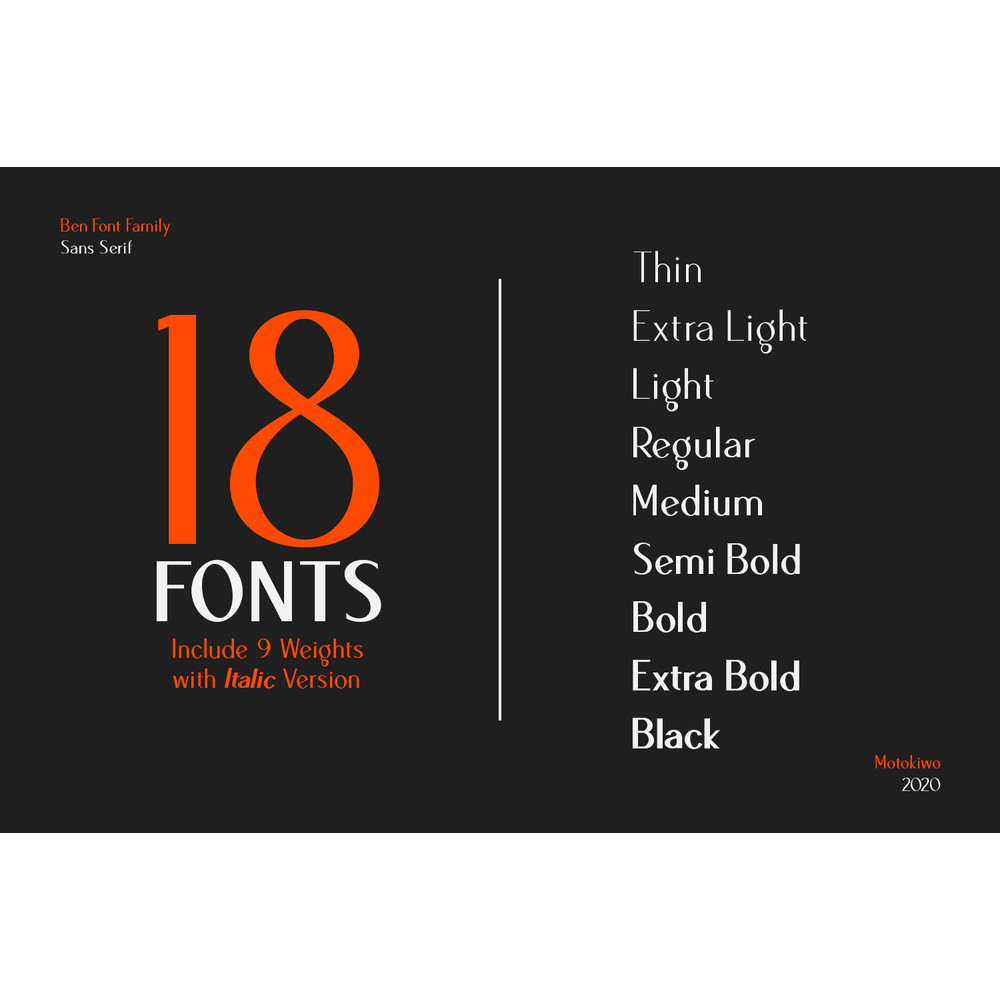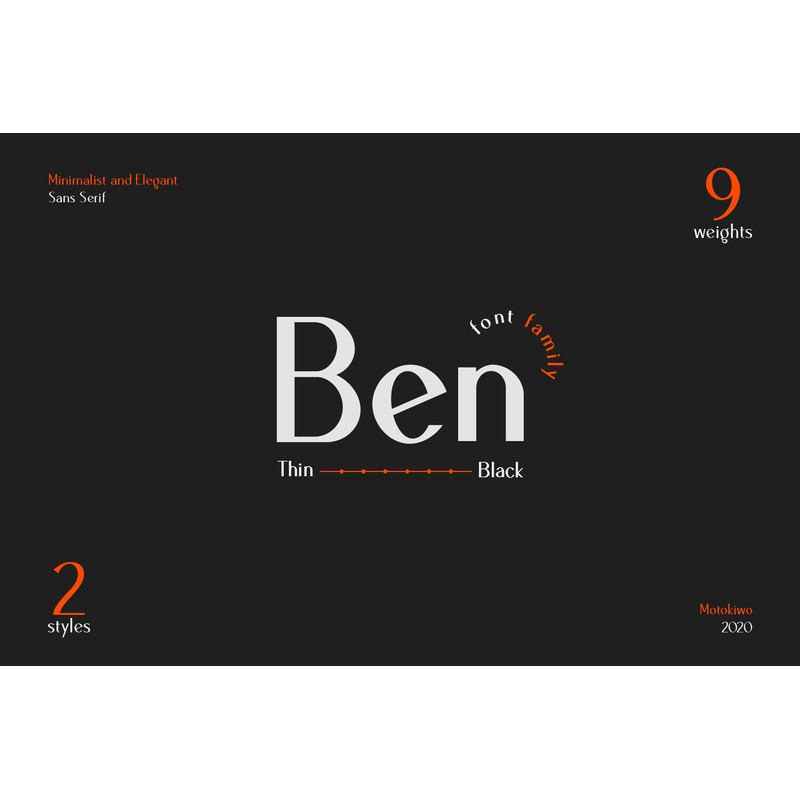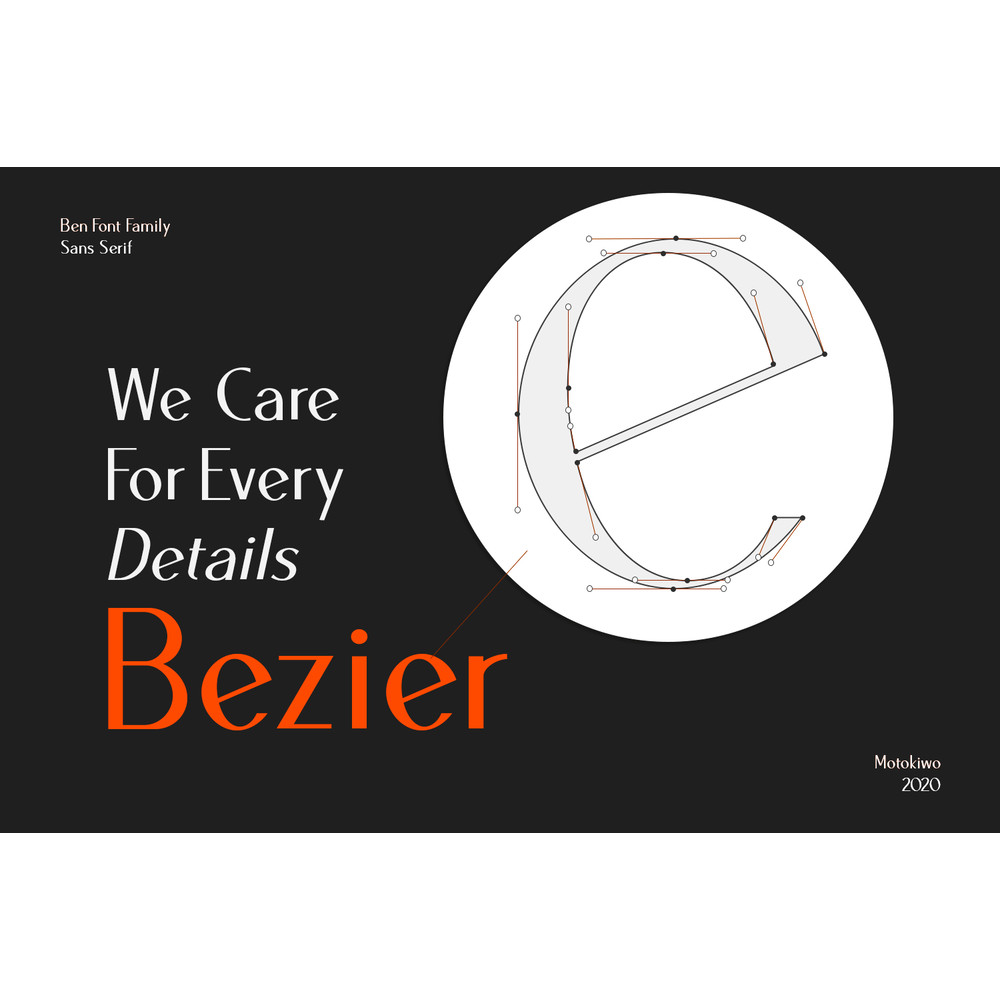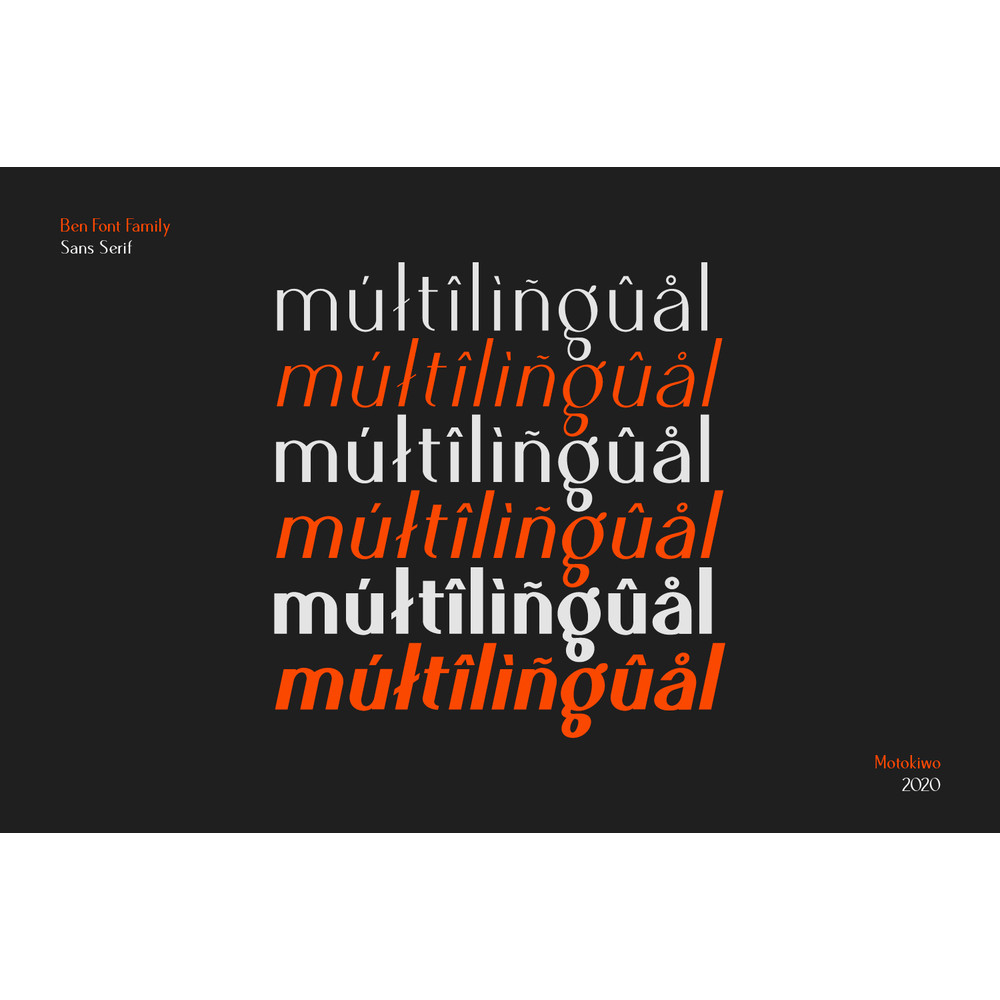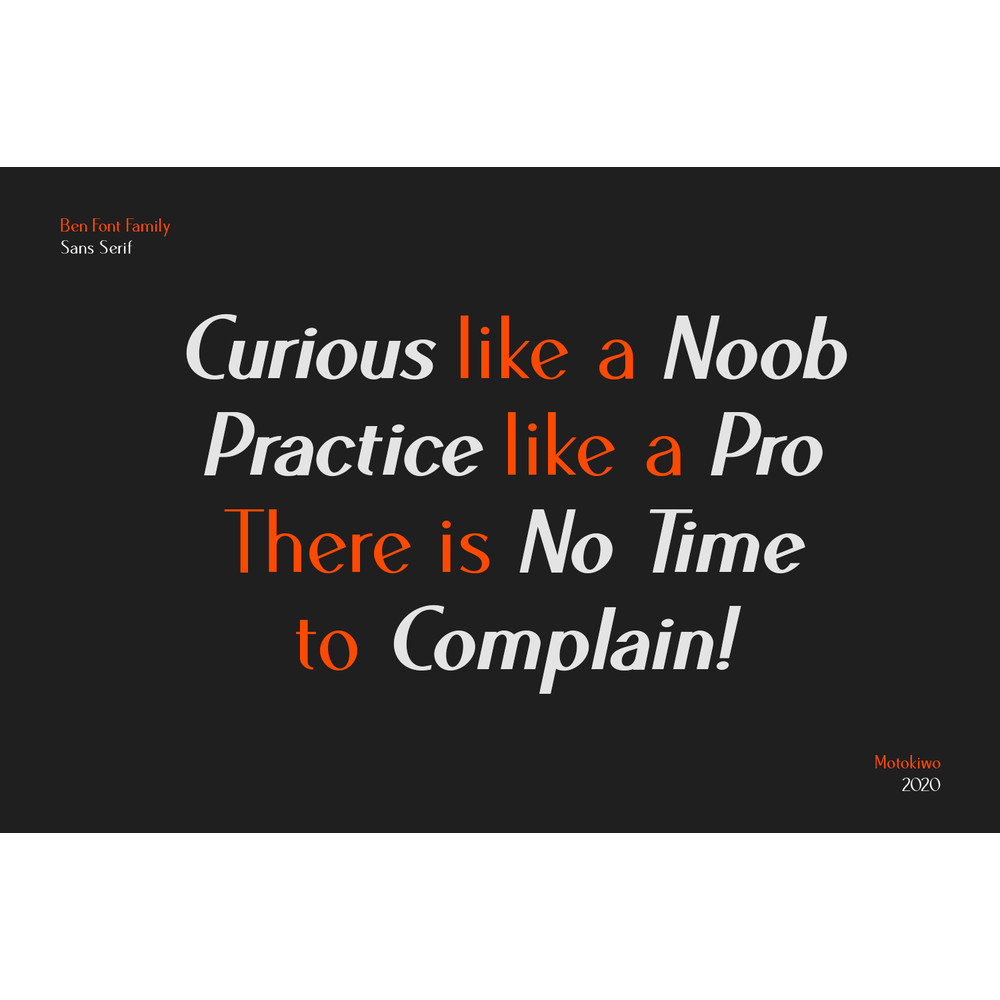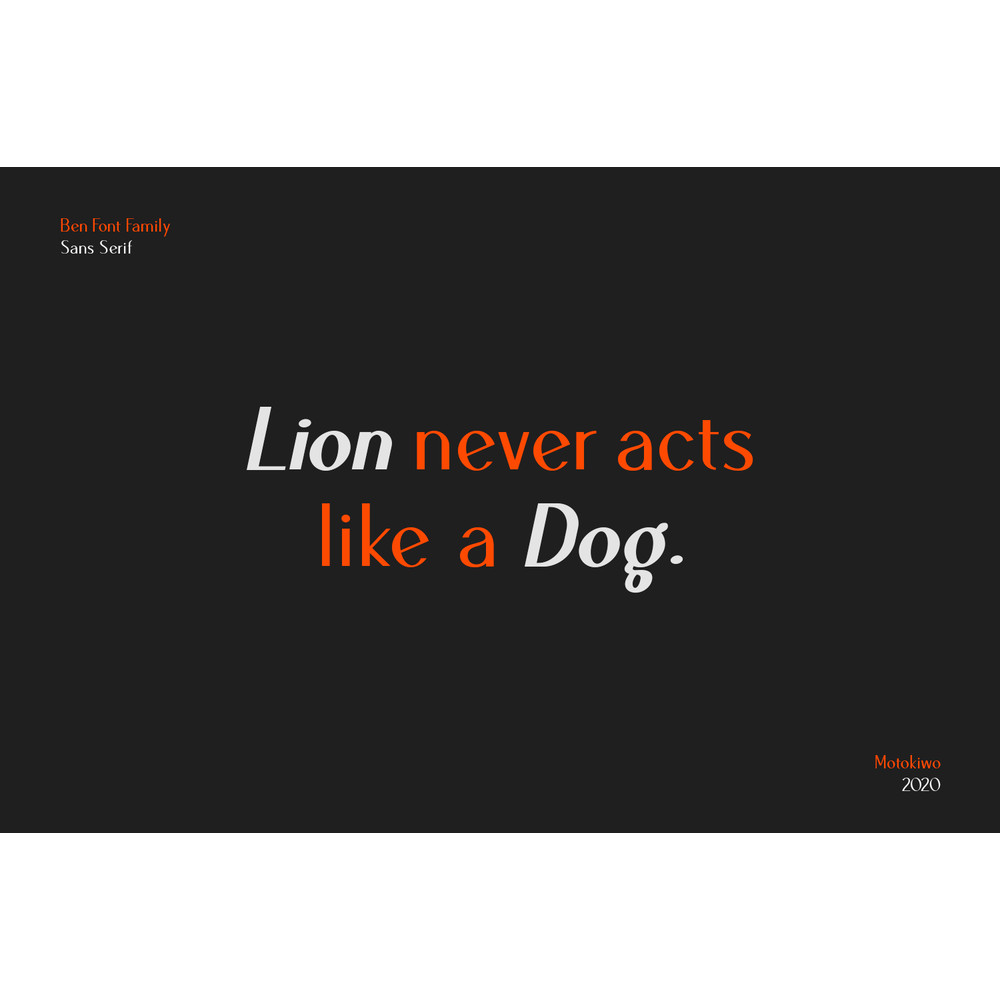
Ben is a simple sans serif font that we made for use on projects that require a touch of elegance. We believe simplicity is the ultimate form of sophistication and give all the idea to Ben. This font is a mirror of our personality. Ben consist of 18 faces (9 weights with italics). All fonts include uppercase, lowercase, numeral, punctuation, and special characters. The weights will give you dynamic control to use Ben in any typography projects.